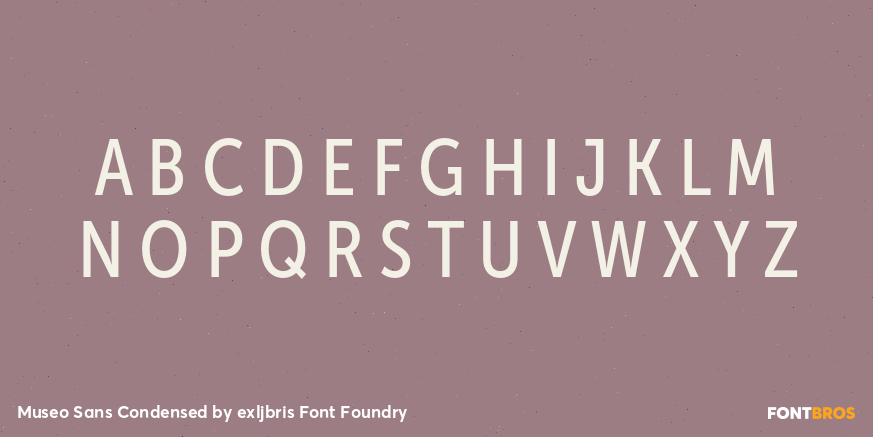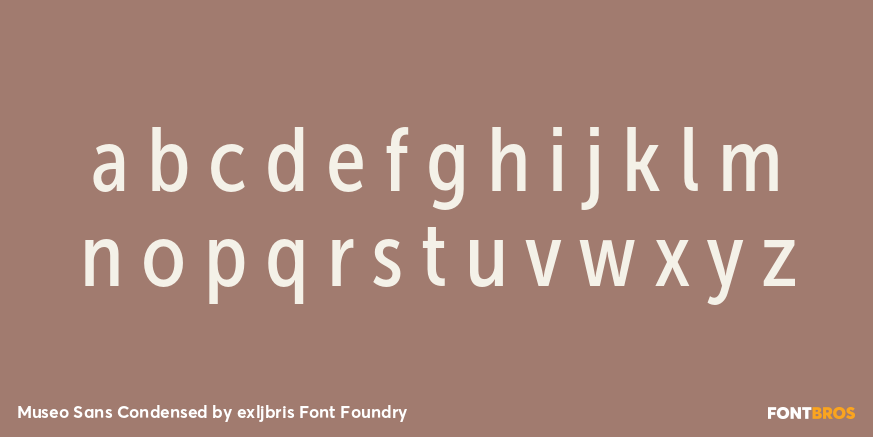
Museo Sans Condensed
Font Family by exljbris Font Foundry
Museo Sans Condensed is a modern sans serif family with a narrow, geometric look and a clean, balanced voice. Its condensed proportions give it a sleek, professional presence, while the range of weights keeps it feeling flexible rather than rigid.
This family includes 10 styles, spanning light to heavy weights with matching italics, making it useful for everything from bold headlines to more refined supporting type. The overall effect is contemporary, legible, and straightforward, with enough elegance for polished brand work.
For designers who need a space-saving sans with strong visual impact, this one is well suited to branding, corporate communications, editorial layouts, posters, signage, and digital graphics. Published by exljbris Font Foundry, it brings a crisp, high-impact tone without losing clarity.